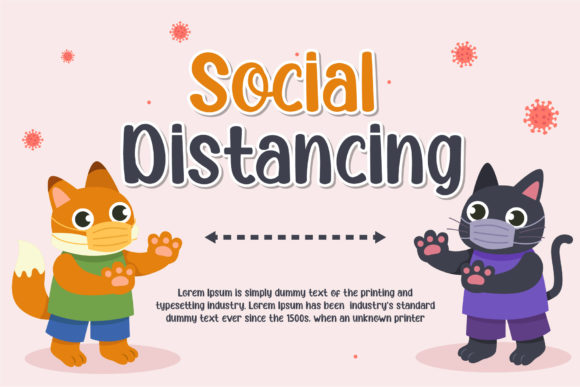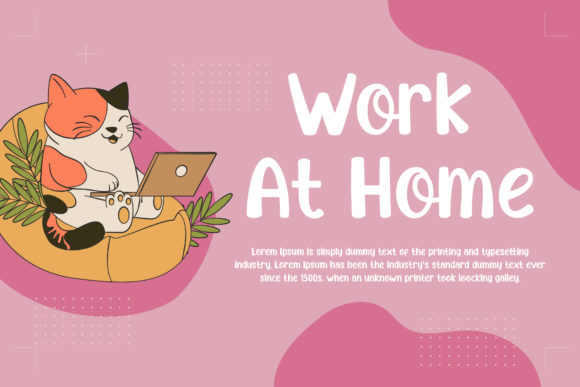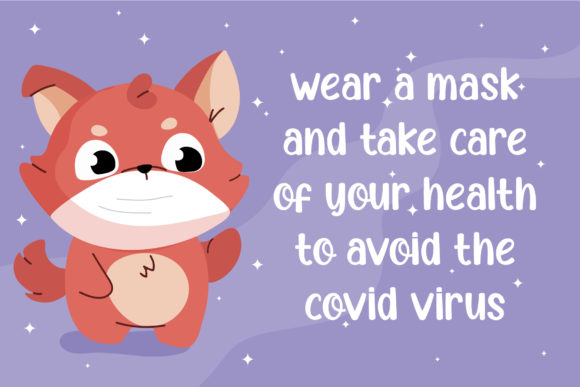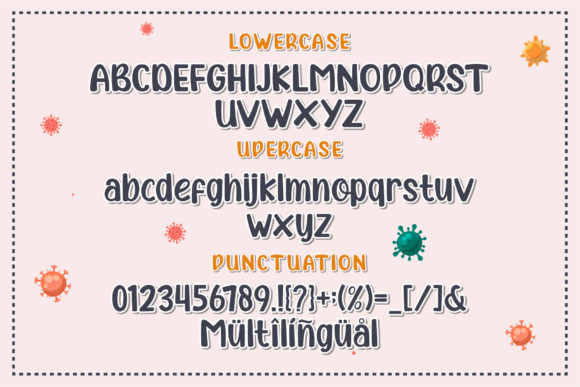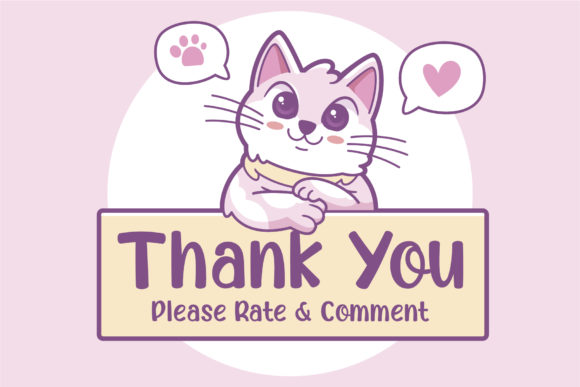
Amoeba Square Font: Elevate Your Designs with a Simple yet Striking Display Font
Are you tired of using the same old fonts in your designs? Look no further than the Amoeba Square Font, a simple and neat lettered display font that’s sure to make your creative ideas stand out. In this article, we’ll dive into the world of Amoeba Square Font, exploring its features, benefits, and uses, and providing you with tips on how to incorporate it into your designs.
What is Amoeba Square Font?
Amoeba Square Font is a modern, sans-serif display font that’s perfect for designers and crafters looking to add a touch of elegance and sophistication to their work. With its clean lines, simple shapes, and neat lettering, this font is ideal for creating eye-catching headlines, titles, and captions that demand attention.
Key Features of Amoeba Square Font
- Simple and Neat Lettering: Amoeba Square Font boasts a clean and minimalist design, making it perfect for designs that require a touch of simplicity and elegance.
- Display Font: This font is specifically designed for display purposes, making it ideal for headlines, titles, and captions that need to stand out.
- Versatile: Amoeba Square Font can be used in a variety of design projects, from branding and advertising to packaging and digital media.
- Easily Readable: Despite its simple design, Amoeba Square Font is highly legible, making it perfect for designs that require clear communication.
Benefits of Using Amoeba Square Font
So, why should you choose Amoeba Square Font for your designs? Here are just a few benefits of using this amazing font:
- Stand Out from the Crowd: With Amoeba Square Font, you can create designs that are truly unique and eye-catching, setting you apart from the competition.
- Enhance Your Brand: This font is perfect for creating a strong brand identity, adding a touch of sophistication and elegance to your designs.
- Increase Legibility: Amoeba Square Font is highly legible, making it perfect for designs that require clear communication, such as headlines, titles, and captions.
- Save Time: With its simple and clean design, Amoeba Square Font is easy to read and understand, saving you time and effort in the design process.
How to Use Amoeba Square Font in Your Designs
Ready to incorporate Amoeba Square Font into your designs? Here are some tips to get you started:
- Use it as a Headline Font: Amoeba Square Font is perfect for creating eye-catching headlines that demand attention.
- Add it to Your Branding: Use this font to create a strong brand identity, adding a touch of sophistication and elegance to your designs.
- Mix and Match: Experiment with different font combinations, pairing Amoeba Square Font with other fonts to create unique and interesting designs.
- Customize it: Don’t be afraid to get creative and customize Amoeba Square Font to fit your design needs.
In conclusion, Amoeba Square Font is a simple yet striking display font that’s perfect for designers and crafters looking to elevate their designs. With its clean lines, simple shapes, and neat lettering, this font is ideal for creating eye-catching headlines, titles, and captions that demand attention. Whether you’re looking to add a touch of elegance and sophistication to your designs or simply want to create something truly unique, Amoeba Square Font is the perfect choice.